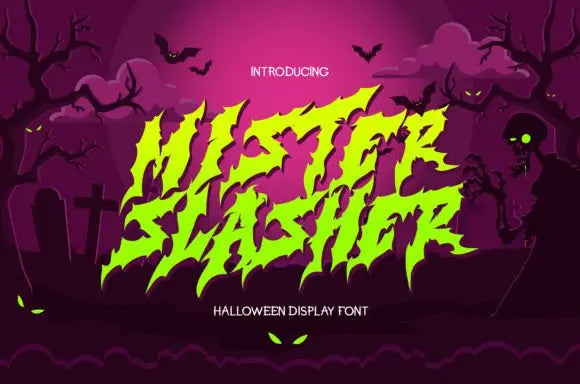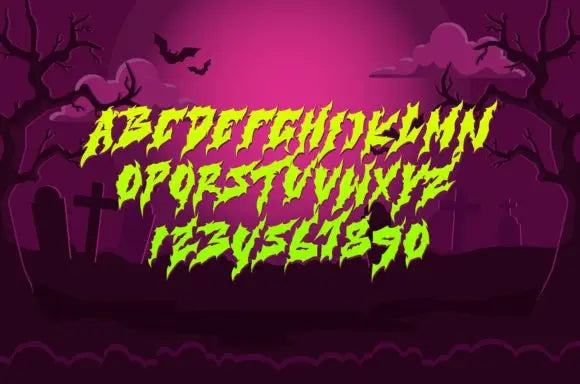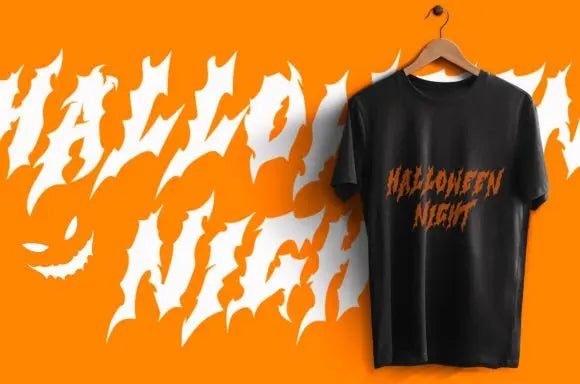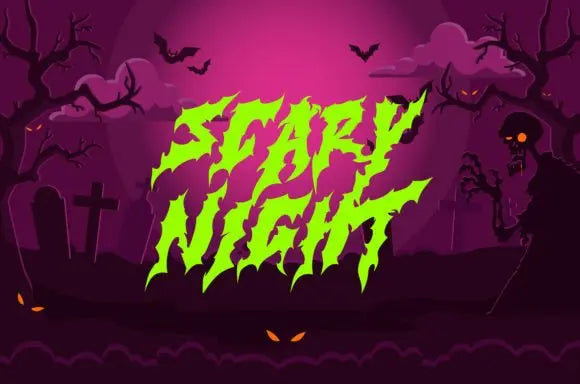
Mister Slasher Font
Slice Through the Ordinary with Mister Slasher Font
Why Mister Slasher Font is the Ultimate Horror Typeface?
For fans of horror, thriller, and dark aesthetics, Mister Slasher Font delivers fear and intensity to any design. Whether you’re creating Halloween posters, spooky branding, or thriller book covers, this font brings a terrifying, blood-dripping effect to your visuals.
Mister Slasher Font – Creepy, Bold & Spine-Chilling
With rough, slashed strokes and a distressed look, this font perfectly suits horror movie titles, haunted house flyers, and dark-themed designs.
Key Features of Mister Slasher Font:
✦ Perfect for Horror & Thriller Themes – Ideal for spooky branding, Halloween events, and movie posters.
✦ Distressed & Creepy Design – Adds a fear-inducing touch to your work.
✦ High-Impact Readability – Works well for titles, banners, and scary invitations.
Turn up the horror factor with Mister Slasher Font – perfect for scary, suspenseful designs!